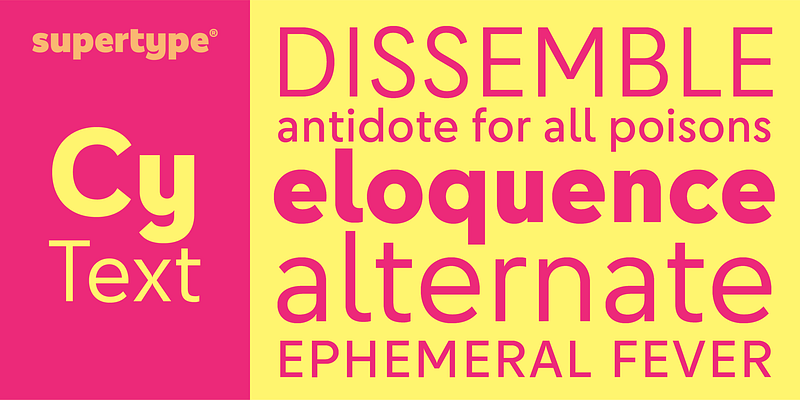
Cy Text Font Free Download is a modern and highly legible sans-serif typeface designed with clarity and versatility in mind. With clean lines and balanced proportions, it is perfect for a wide range of projects, including websites, branding, editorial designs, and user interfaces.
Cy Text works beautifully for both large display text and smaller body copy, ensuring excellent readability across different platforms. It integrates seamlessly with design tools like Adobe Illustrator, Photoshop, Figma, and Canva, providing flexibility for both print and digital media.